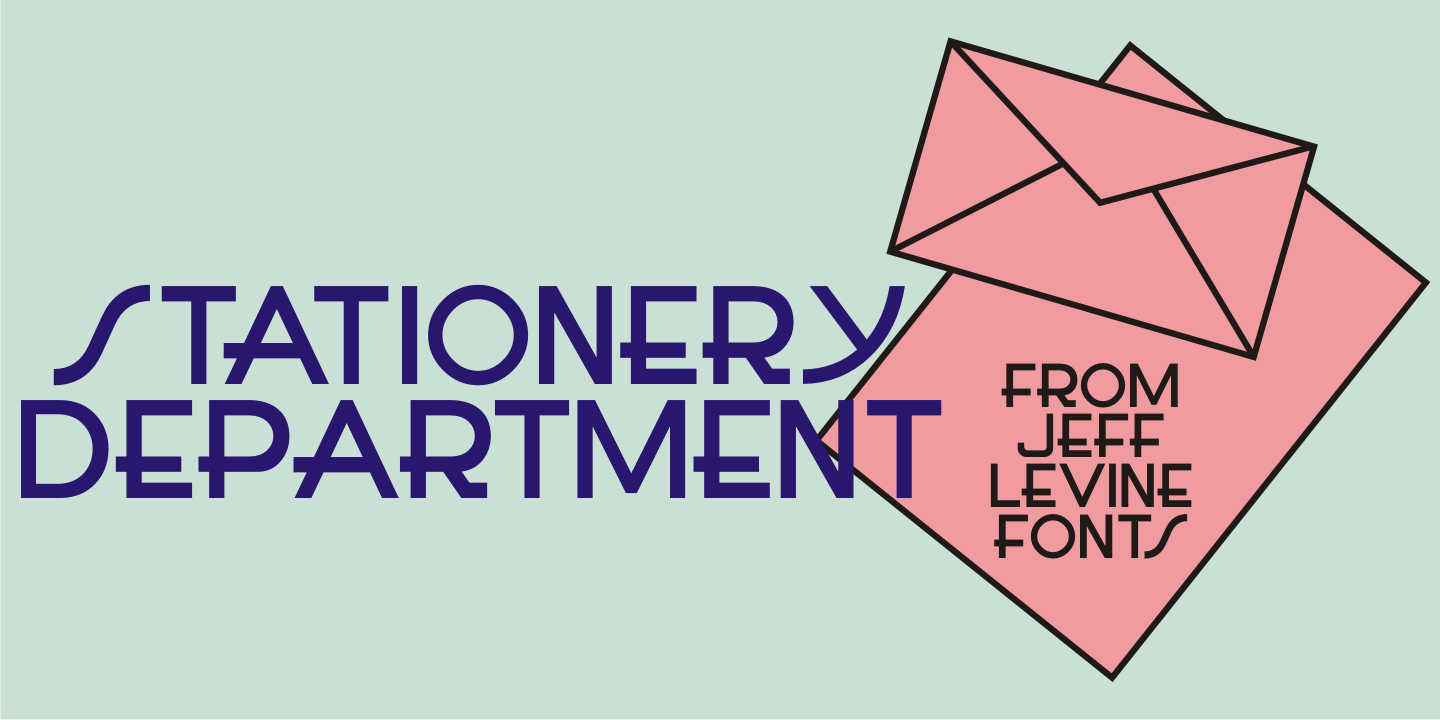
Stationery Department
A 1940s-era package of 'Herald Square' carbon paper sold by the F.W. Woolworth 5 & 10 cent stores offered up the hand lettered Art Deco design of Stationery Department JNL.
Stationery Department JNL Regular by Jeff Levine Fonts